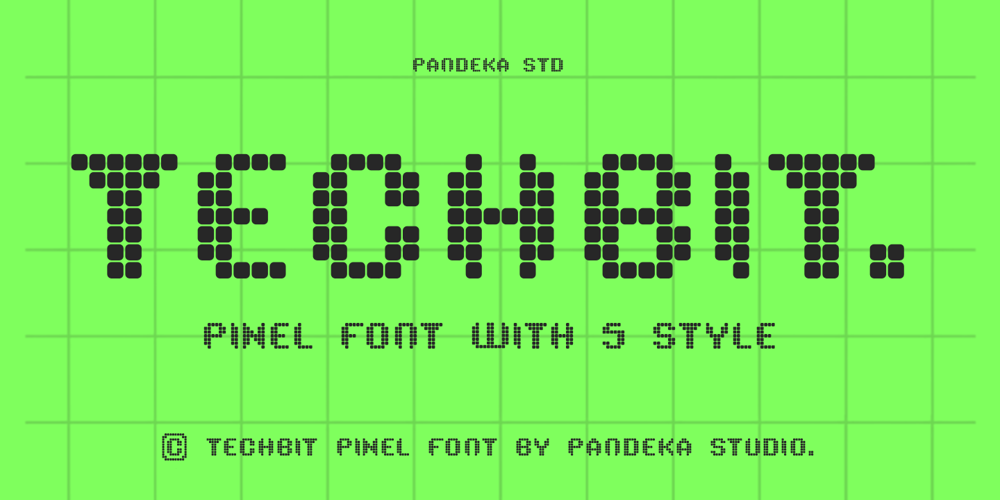
Techbit Font Family was designed by Sagara Nararya and published by Pandeka Studio. Techbit contains 5 styles and family package options. Techbit is a modern pixel font family designed to bring a clean, digital aesthetic to your projects. With its sharp, blocky letterforms and retro pixel-inspired style, Techbit blends nostalgia and simplicity, making it perfect for games, apps, branding, posters, and more. Whether you’re looking for a classic pixel look or a contemporary twist, Techbit delivers versatility and creative potential.Techbit comes with 5 unique styles: Regular, Outline, Rounded, Outline Rounded, and Slant. Each style provides a distinct vibe, allowing you to mix, match, and create dynamic, eye-catching designs.What you get: Main Files versions 5 Styles: Regular, Outline, Rounded, Outline Rounded, and Slant Instructions how to use in any programs Complete set: Letters, numbers, symbols, punctuation Easy installation – Works on both PC & Mac Compatible with Adobe Illustrator, Adobe Photoshop, Microsoft Word, and Canva PUA Encoded Characters – Fully accessible without additional software Language Support: Danish, English, Estonian, Filipino, Finnish, French, Friulian, Galician, German, Gusii, Indonesian, Irish, Italian, Luxembourgish, Norwegian Bokmål, Norwegian Nynorsk, Nyankole, Oromo, Portuguese, Romansh, Rombo, Spanish, Swedish, Swiss-German, Uzbek (Latin)If you have questions or need a custom license, please visit our website: www.dharmasstudio.com. Come say hello on Instagram: @dharmas_studio!Thank you for choosing Techbit – your go-to pixel font for all things digital. Have a pixel-perfect day!Pandeka Studio